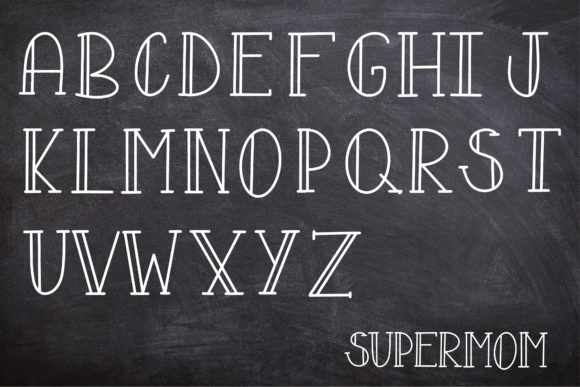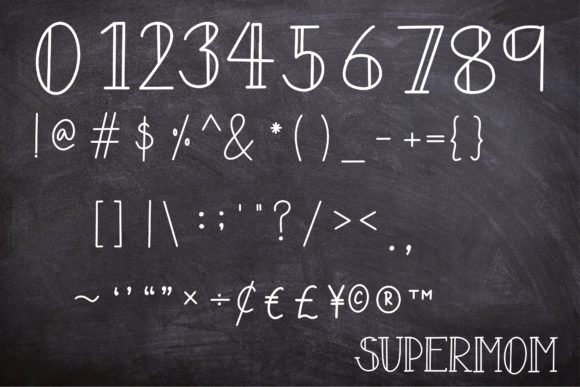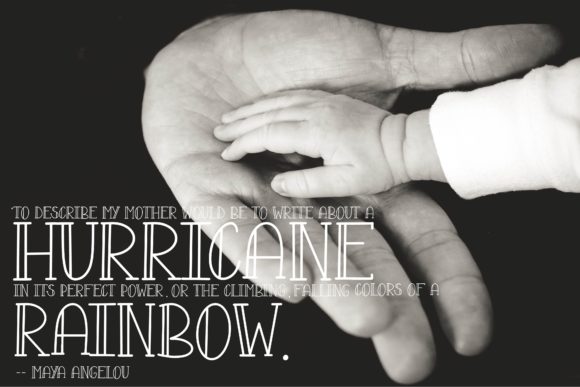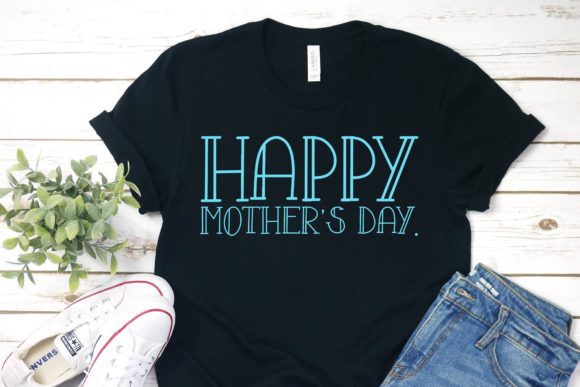
Supermom Font
About Supermom Font
Supermom is a casual handwritten font. It features an incredibly classic style, while still keeping a friendly feel. Supermom is the perfect font for making original and outstanding designs.